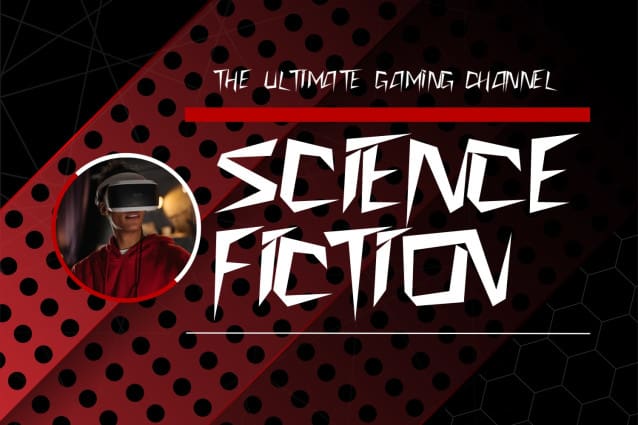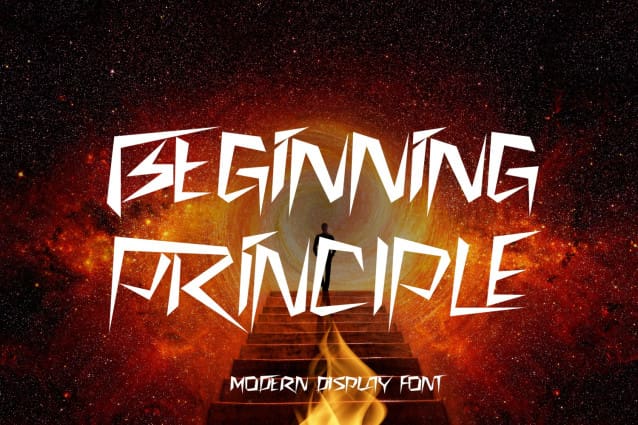
Beginning Principle Font
BEGINNING PRINCIPLE FONT, an angular techno typeface inspired by the diagonal strokes, bringing a retro, arcade-style aesthetic to your designs. But what sets this font apart from other typefaces is its non-traditional, scientific sensibility. Sharp diagonal cuts and anomalistic gaps inject your words with a sense of experimentation and innovation, perfect for companies on the cutting edge of technology.